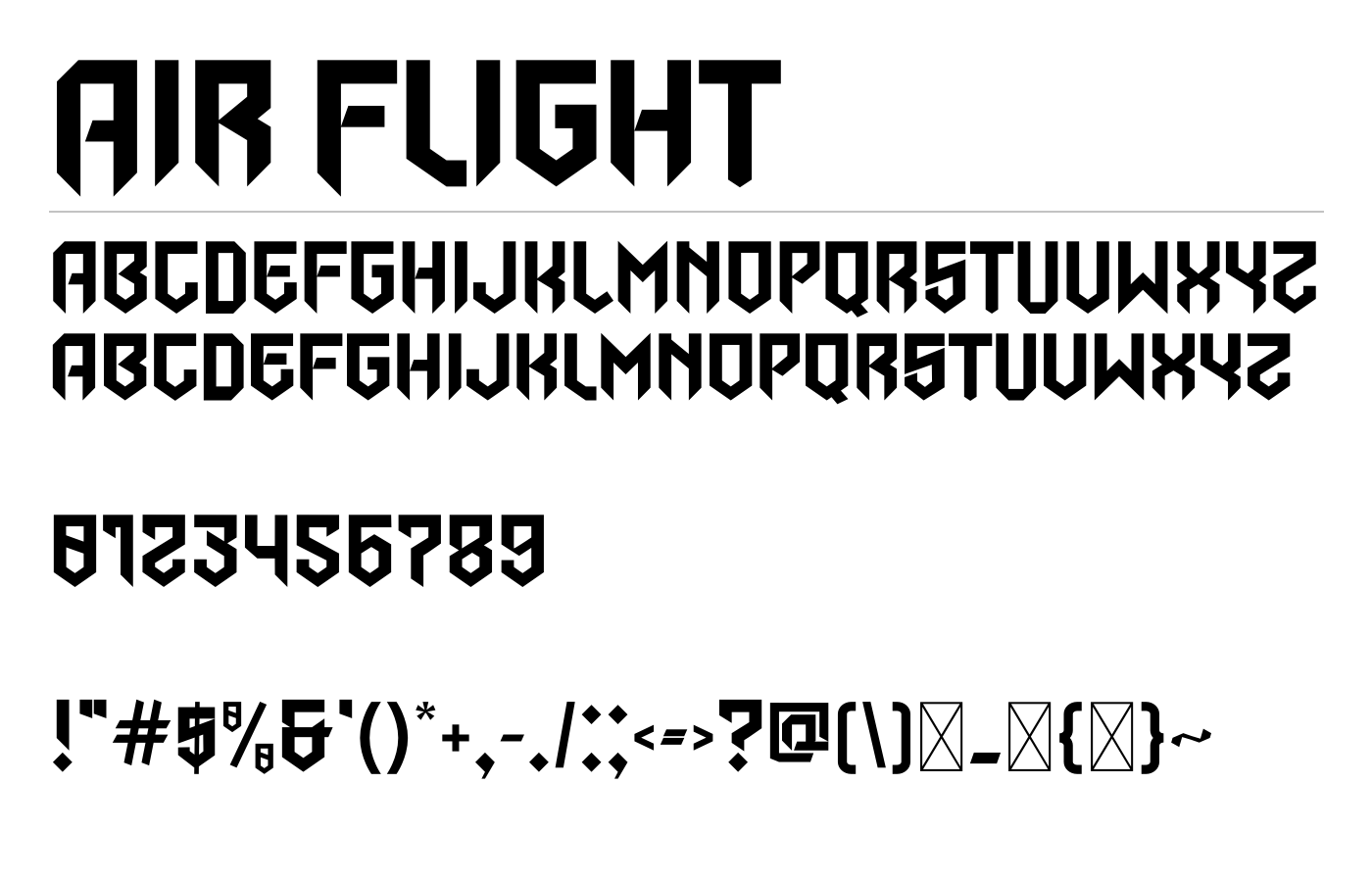
Air Flight is a bold, geometric sans serif font with sharp, angular edges that give it a futuristic and dynamic feel. Its tall, narrow letterforms and consistent stroke weight create a strong, compact look perfect for impactful headlines, logos, and sports or tech branding. This font works well where a modern, energetic vibe is needed to grab attention and convey innovation.
Air Flight Font
About Air Flight Font
| Designer | Lettercorner Studio |